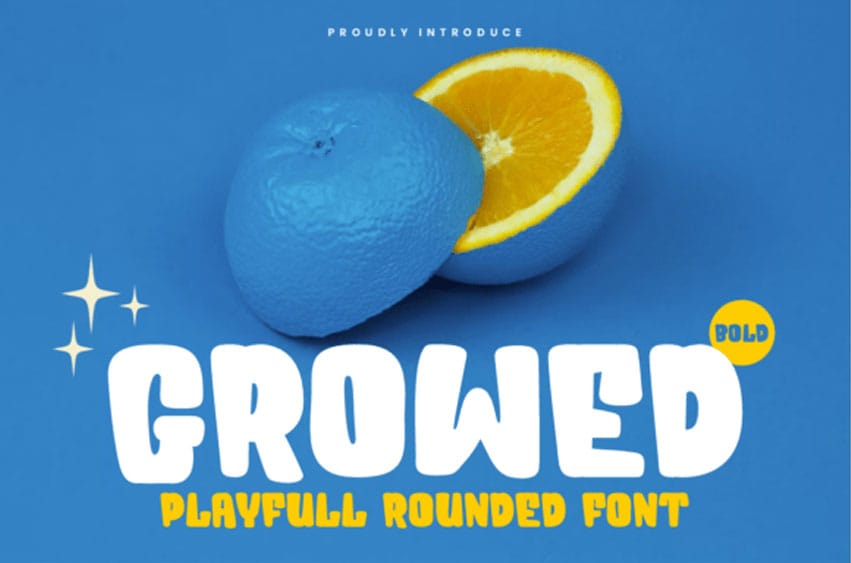
Growed Font typeface is a bold, playful, rounded display font that turns headlines into soft, huggable shapes. Thick, blobby strokes, a generous x-height, and pillowy terminals give every word a friendly bounce, while smooth curves keep it clear on posters, packaging, thumbnails, and stickers.
Use it big for instant impact, tighten the tracking for compact badges, or space it wide for airy pop-art vibes. Growed pairs perfectly with clean sans serifs and bright palettes, and it loves outlines, drop shadows, and 3D extrudes. Ideal for kids’ products, snacks, summer events, DIY crafts, and fun social graphics.
It includes uppercase and lowercase letters, numerals, and punctuation for flexible typesetting—perfect for logos, titles, and short taglines that need charm and confidence.